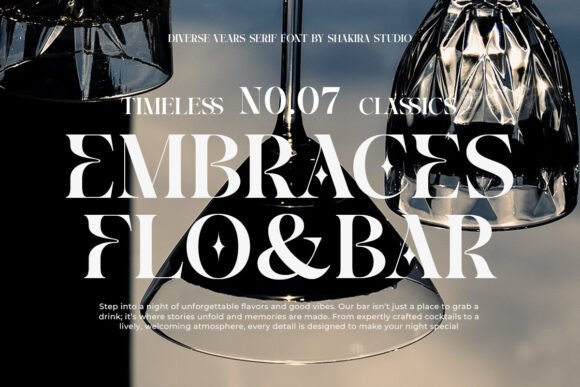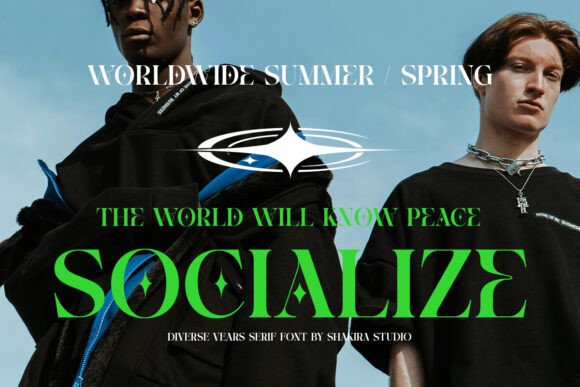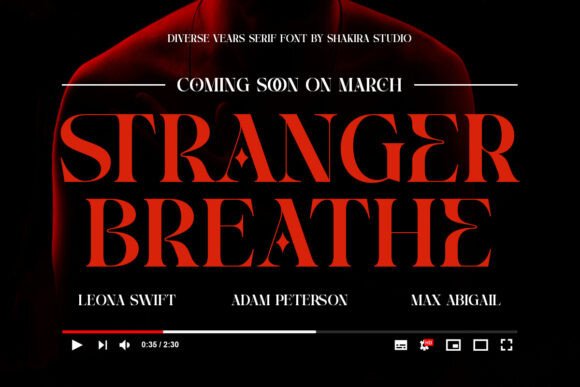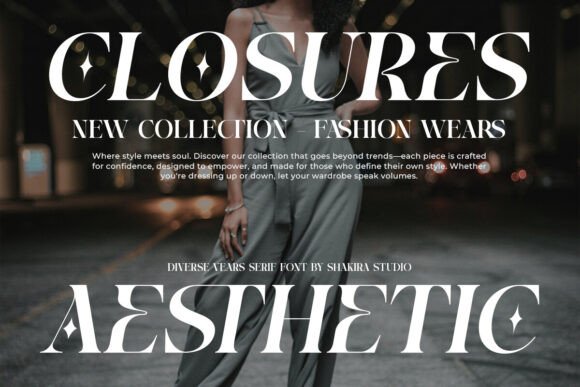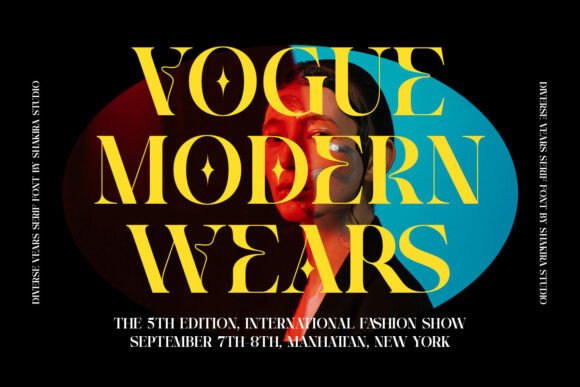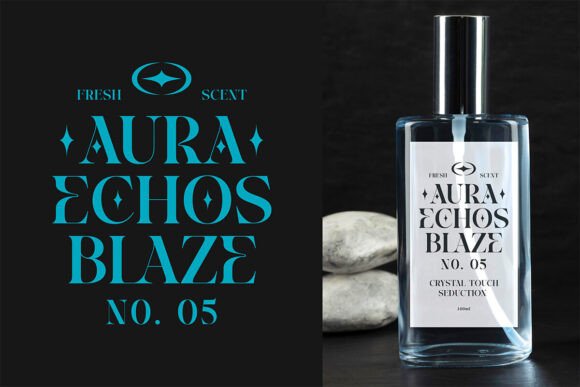
Diverse Vears Font: Elevate Your Designs with Luxury and Elegance
In the world of typography, a good font can make all the difference in elevating your designs to the next level. For designers and crafters looking for a typeface that exudes luxury and elegance, Diverse Vears is an excellent choice. This modern serif font is available in regular and italic styles, offering a versatile and timeless solution for a wide range of design projects.
What is Diverse Vears Font?
Diverse Vears is a carefully crafted serif typeface that combines the classic appeal of traditional serif fonts with modern elements. Its unique design features stylish alternates and ligatures, making it perfect for adding a touch of sophistication to any project. Whether you’re working on branding, editorial layouts, logos, or other design materials, Diverse Vears is an excellent choice.
Key Features of Diverse Vears Font
- Modern Serif Design: Diverse Vears boasts a contemporary serif design that is both elegant and refined.
- Regular and Italic Styles: The font comes in two styles, providing flexibility and versatility for your designs.
- Stylish Alternates and Ligatures: Add a unique touch to your designs with the font’s stylish alternates and ligatures.
- Luxury and Elegance: Diverse Vears is perfect for designs that require a sophisticated and high-end feel.
Use Cases for Diverse Vears Font
Diverse Vears is a versatile typeface that can be used in a variety of design projects, including:
- Branding: Create a lasting impression with a font that exudes luxury and sophistication.
- Editorial Layouts: Add a touch of elegance to your editorial designs, such as magazines, newspapers, and books.
- Logos: Create a memorable logo that stands out with the unique features of Diverse Vears.
- Packaging: Elevate your packaging designs with a font that is both stylish and refined.
Why Choose Diverse Vears Font?
With so many fonts available, why choose Diverse Vears? Here are a few reasons:
- Unique Design: Diverse Vears offers a unique design that sets it apart from other serif fonts.
- Versatility: The font’s regular and italic styles, combined with its stylish alternates and ligatures, make it a versatile choice for a wide range of design projects.
- Timeless Appeal: Diverse Vears has a timeless quality that ensures your designs will remain stylish and relevant for years to come.
Tips for Using Diverse Vears Font
To get the most out of Diverse Vears, here are a few tips:
- Experiment with Alternates and Ligatures: Take advantage of the font’s stylish alternates and ligatures to add a unique touch to your designs.
- Pair with Other Fonts: Diverse Vears pairs well with other serif and sans-serif fonts, making it easy to create harmonious font combinations.
- Use in Headings and Body Text: The font’s clarity and legibility make it suitable for use in both headings and body text.
| Author | Shakira Studio |
Diverse Vears is a modern serif typeface that offers a unique combination of luxury, elegance, and versatility. With its stylish alternates and ligatures, regular and italic styles, and timeless appeal, it’s an excellent choice for designers and crafters looking to elevate their designs. Whether you’re working on branding, editorial layouts, logos, or other design projects, Diverse Vears is sure to add a sophisticated touch.